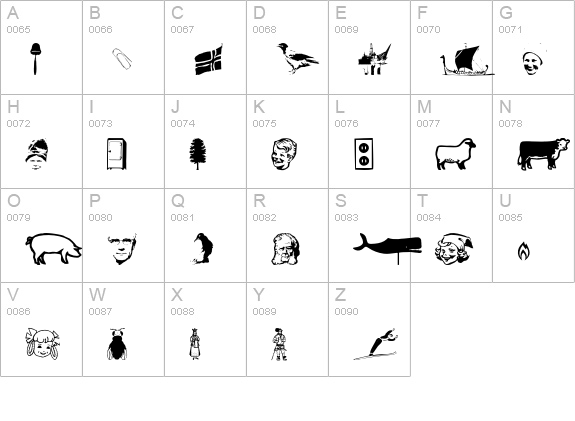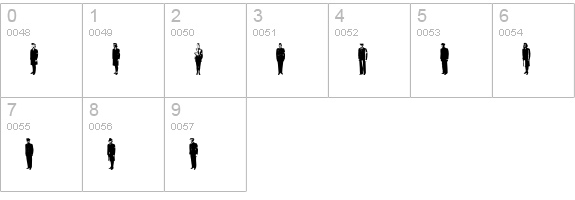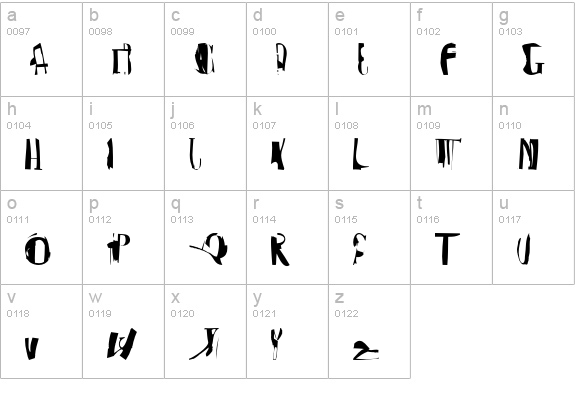
BurieDog-MountainTop Font Details
BurieDog-MountainTop is a whimsical and charming font that exudes a sense of playfulness and creativity. With its quirky and unique design, this font is perfect for adding a touch of fun to any project. The irregular shapes and uneven lines give it a hand-drawn feel that is both endearing and eye-catching. What sets BurieDog-MountainTop apart is its versatility - it can be used for a variety of design projects, from greeting cards to logos to social media graphics. Its friendly and approachable appearance makes it suitable for all kinds of content, whether you're designing for a children's book or a trendy lifestyle brand. And the best part? BurieDog-MountainTop is completely free to download at FontsMarket.com. That's right, you can add this delightful font to your collection without spending a dime. So why wait? Give your designs a playful twist with BurieDog-MountainTop today!